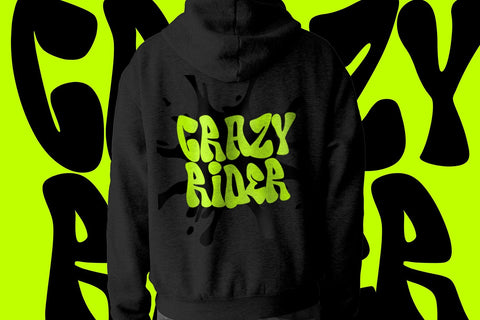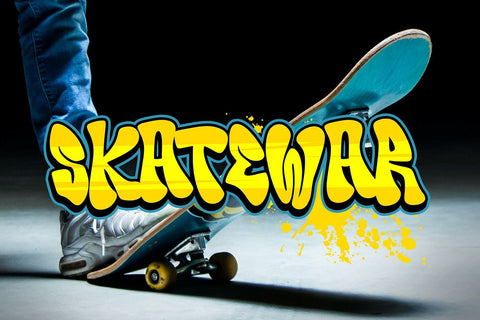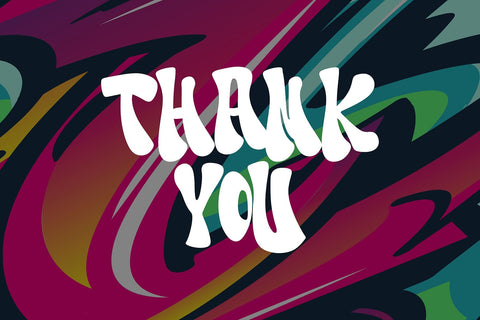
Morton Tagcity - Graffiti Font
"Morton Taggity" is described as an impressive graffiti font. Fonts within this category often exhibit bold, dynamic, and expressive letterforms typical of graffiti art. Such fonts are commonly used in urban-themed designs, street art, posters, and various creative projects aiming for a bold and eye-catching typographic style.
- Graffiti Characters looks